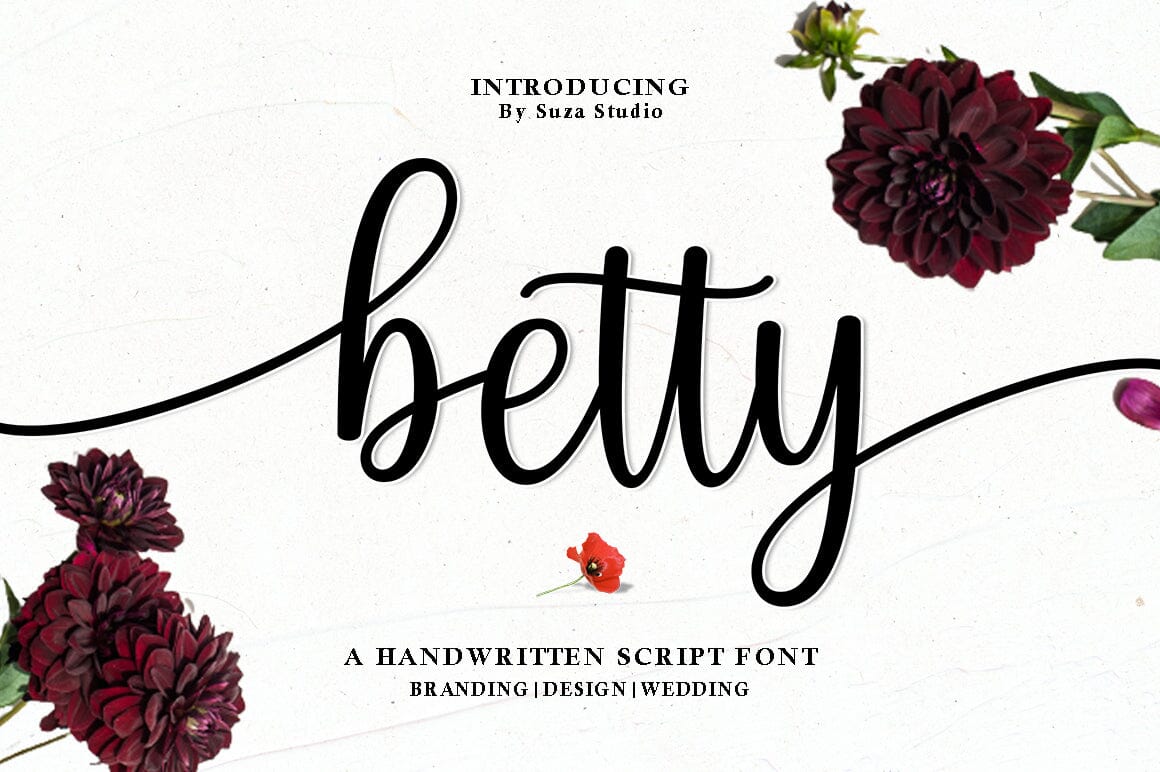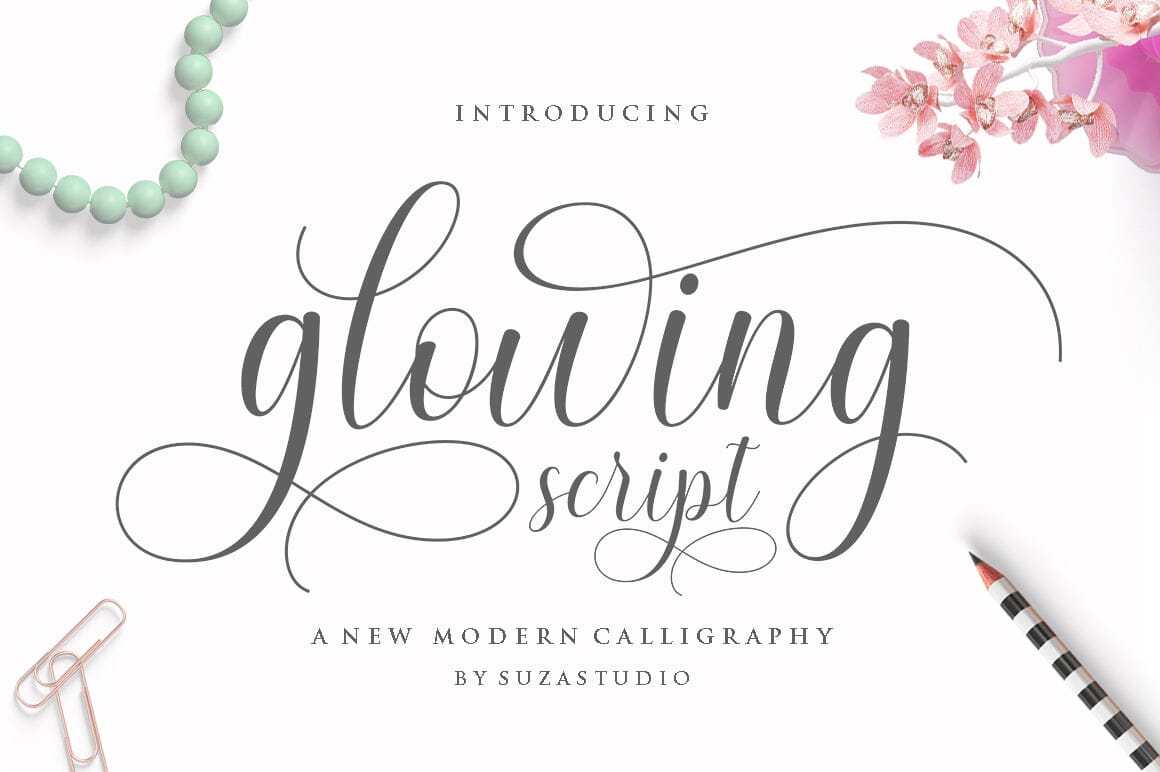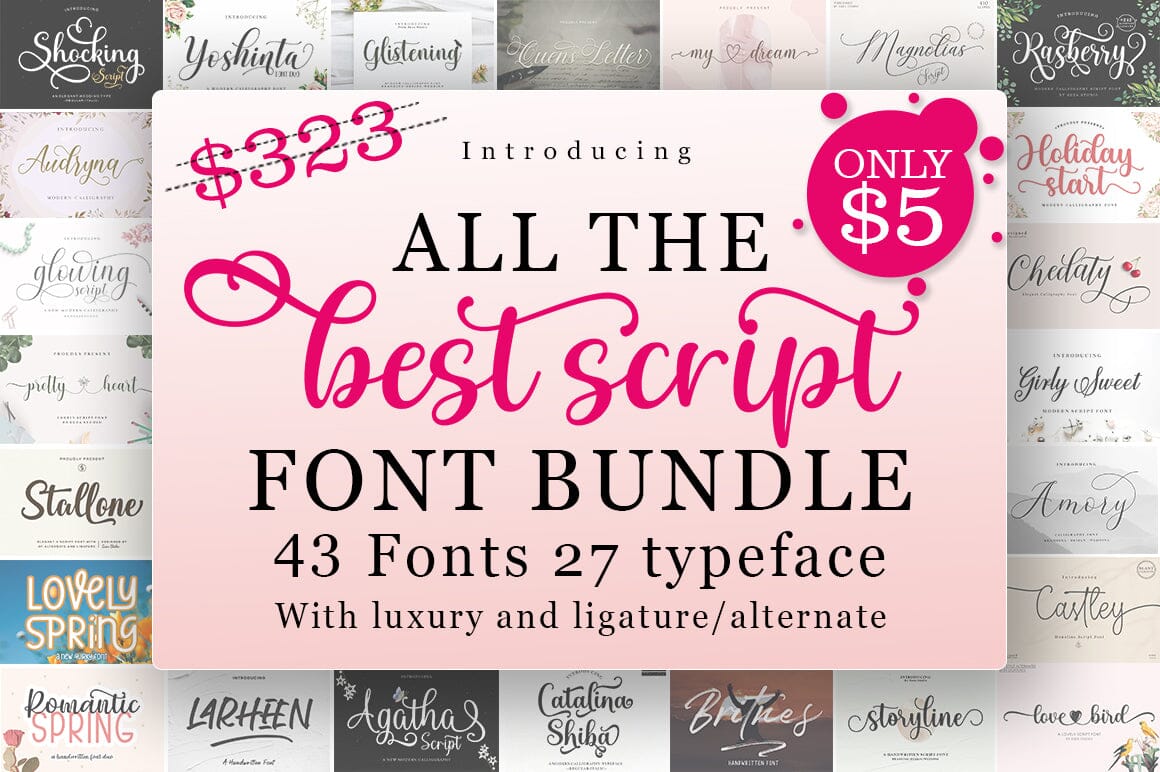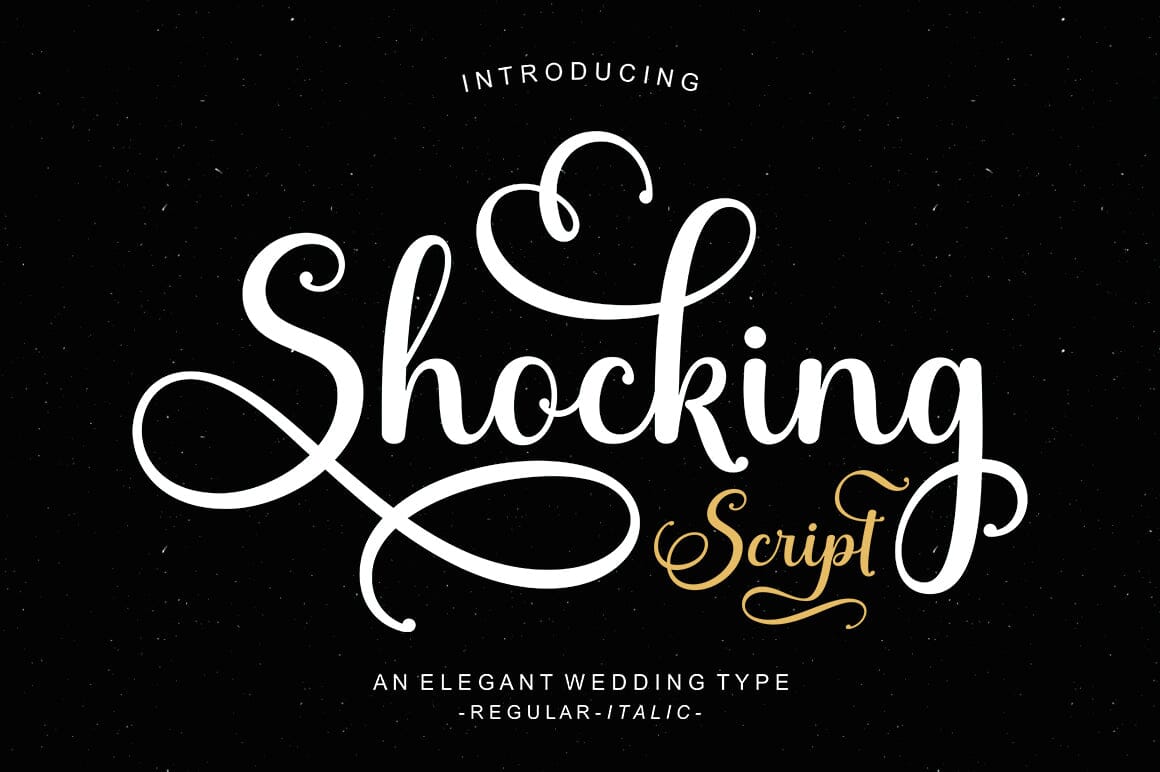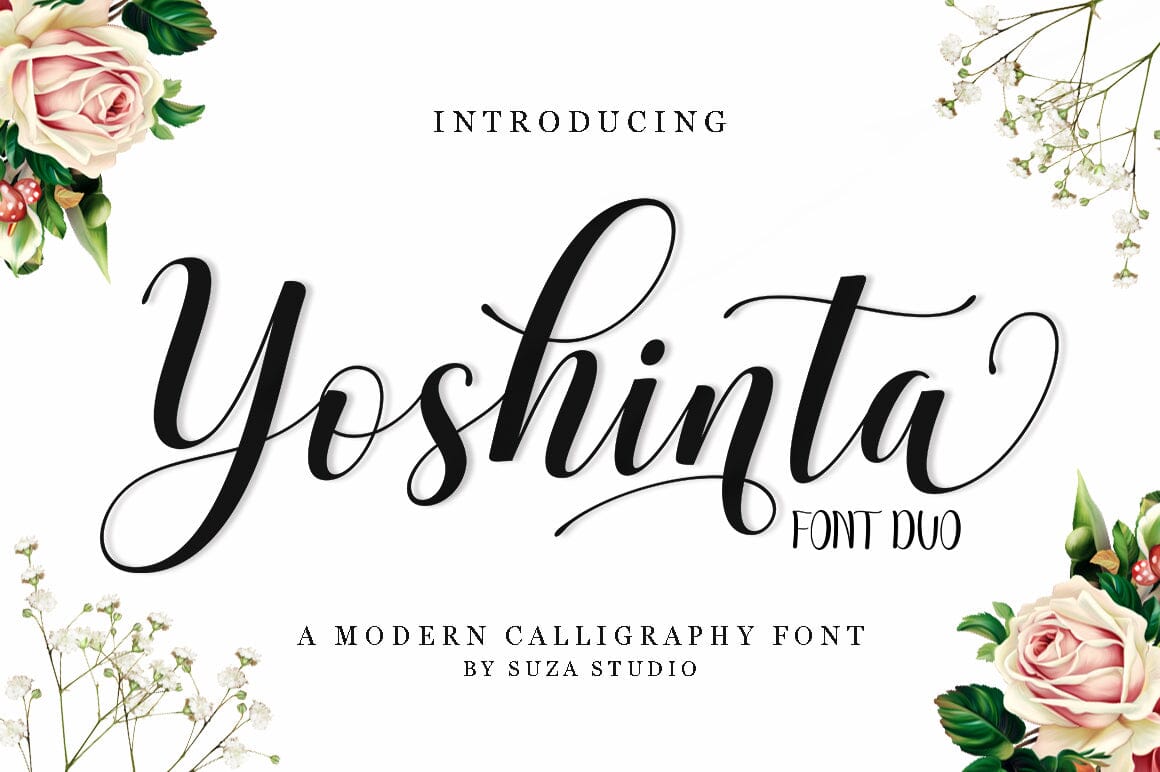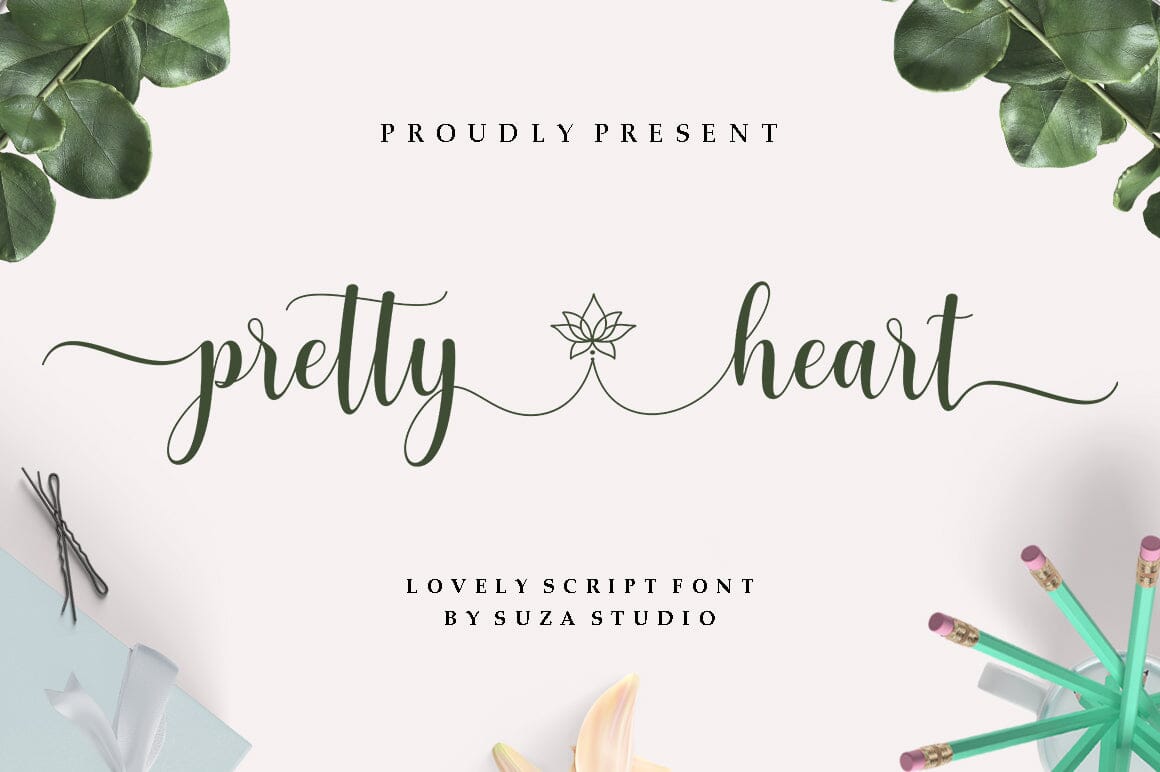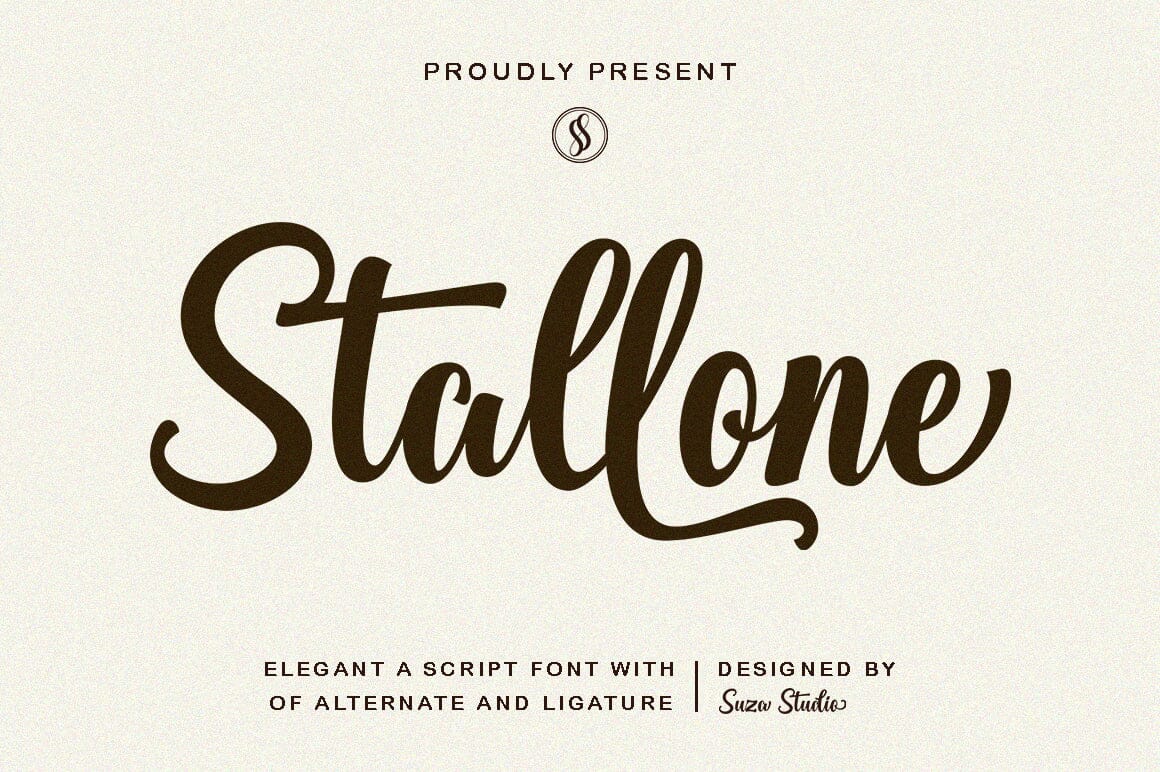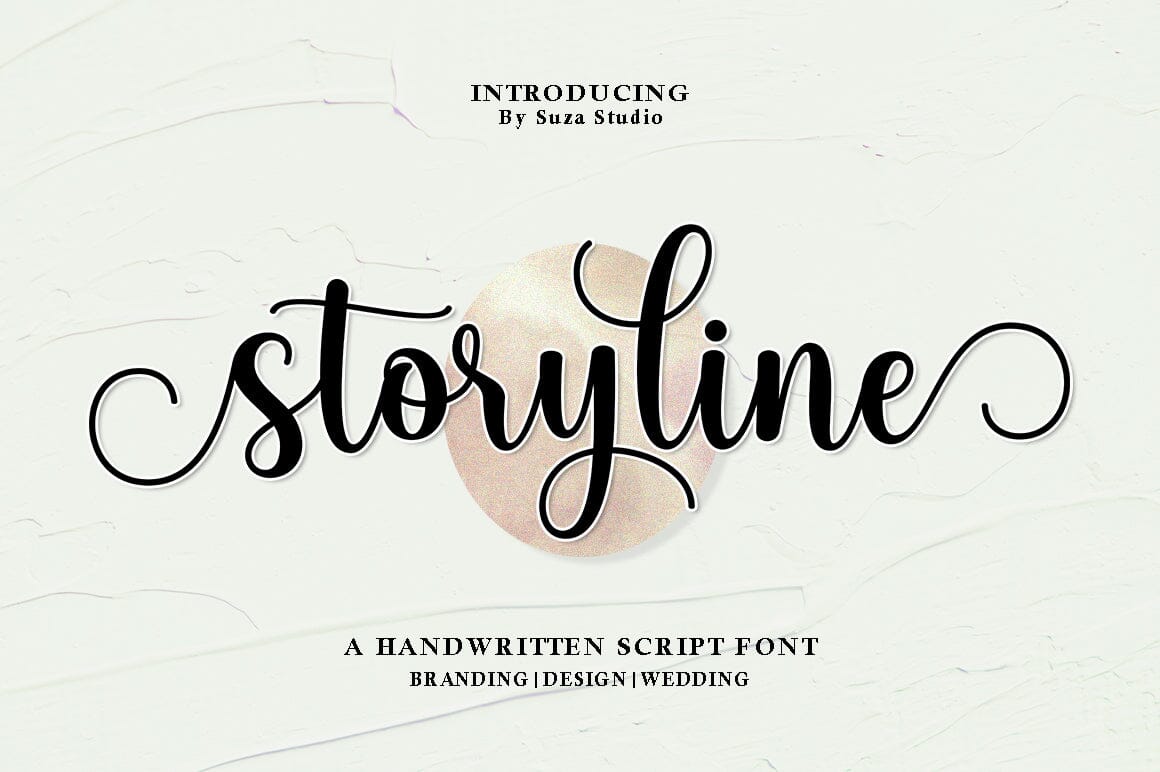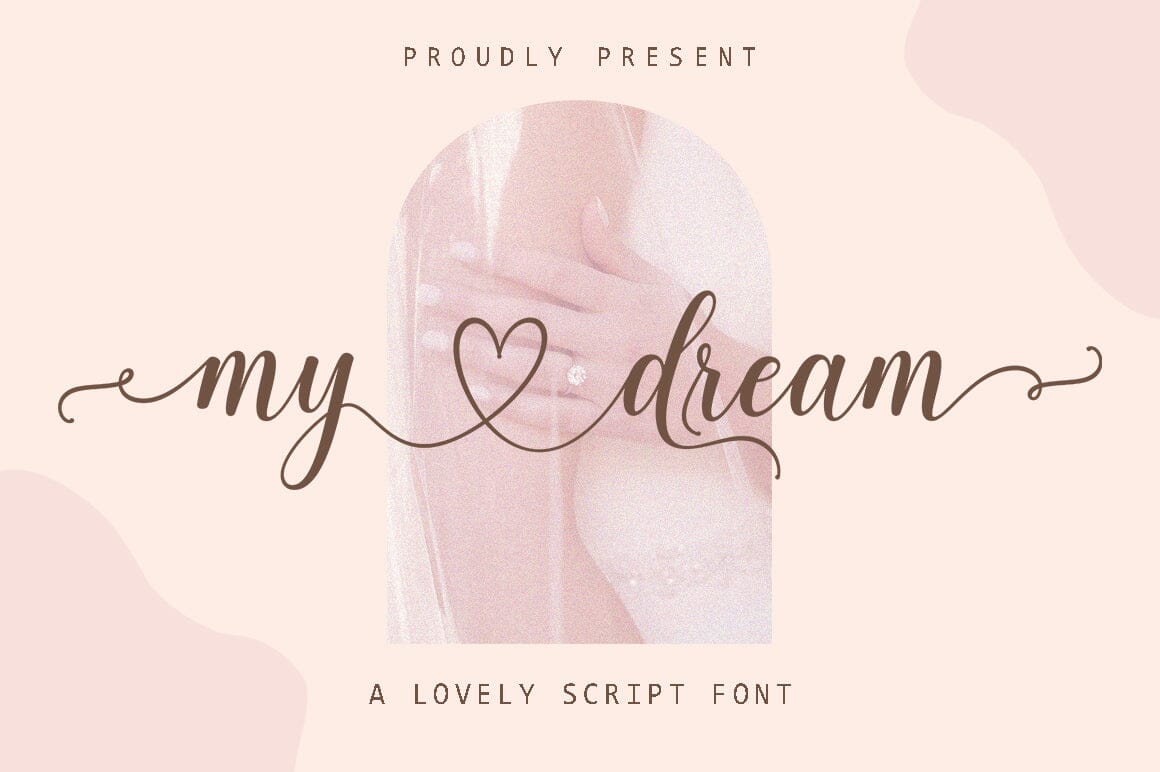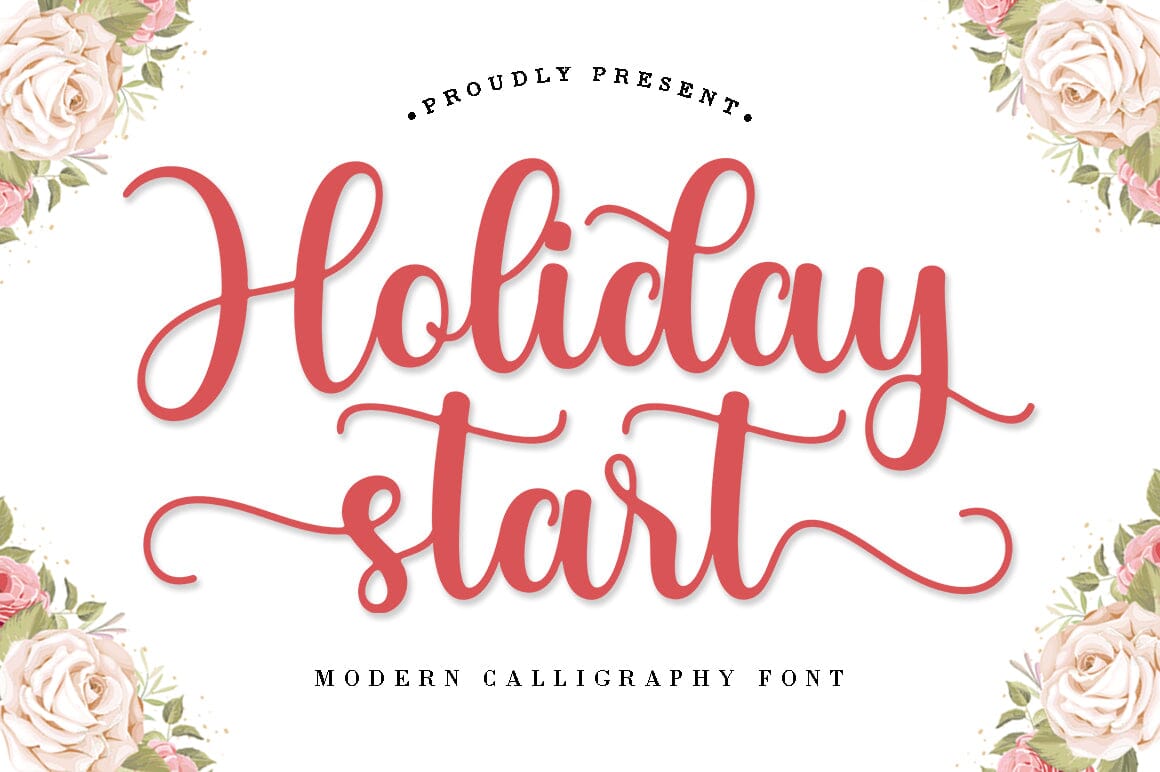
Best Script Font Bundle
About Best Script Font Bundle
Introducing, Best Script Font Bundle, amazing designed typefaces is here to update your font library! In this bundle, you’ll find a combination of classic and modern styles to create the perfect lettering. This professional resource is also powerful because each font has its own magical design. You can use it for almost anything like blog headers, posters, wedding elements, t-shirts, clothing, book covers, business cards, greeting cards, branding, invitations and quotes, and so on. You can get it all at a very cheap price! Feature: Uppercase Lowercase Number Multi Language Support Alternate Ligature Style Set TTF OTF How to Access Alternate Characters: https://www.youtube.com/watch?v=Go9vacoYmBw https://www.youtube.com/watch?v=XzwjMkbB-wQ https://www.youtube.com/watch?v=x1A_ilsBsGs https://www.youtube.com/watch?v=xFlMwARHusY https://www.youtube.com/watch?v=NVJlZQ3EZU0 Thank you for your purchase, enjoy it😊